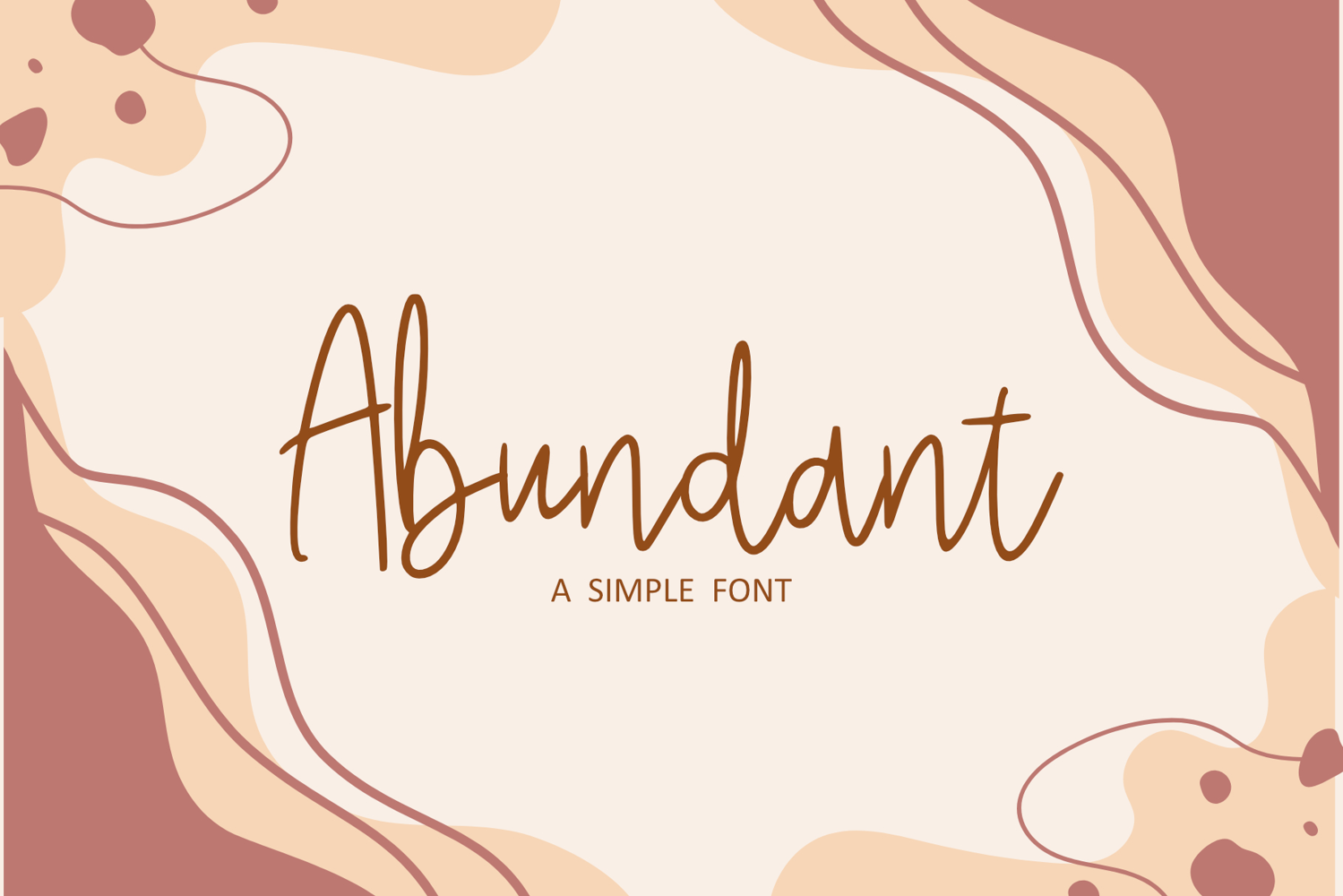
Abundant
Abundant Script Font is a elegant and flowing font design with intricate swirls and loops. Its cursive style adds a touch of sophistication to any project, perfect for invitations, branding, and more.